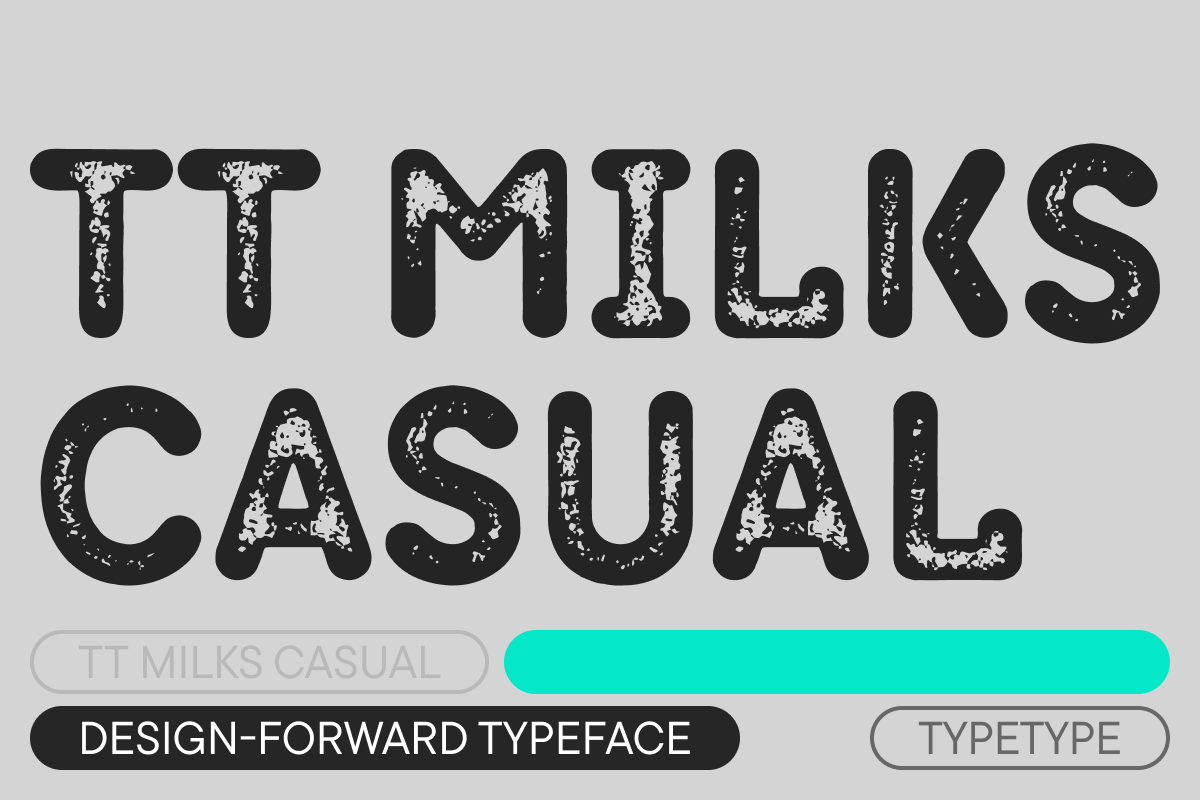
TT Milks Casual 900 Two
Initially the idea for TT Milks was to create a collection of fonts to be used for packaging and branding of dairy products. While working on the initial idea, we’ve tested all possible glyph variations, which resulted in a large decorative designer font family. Thanks to a variety of elements, TT Milks collection has exceeded its initial idea and now offers an unlimited application range.